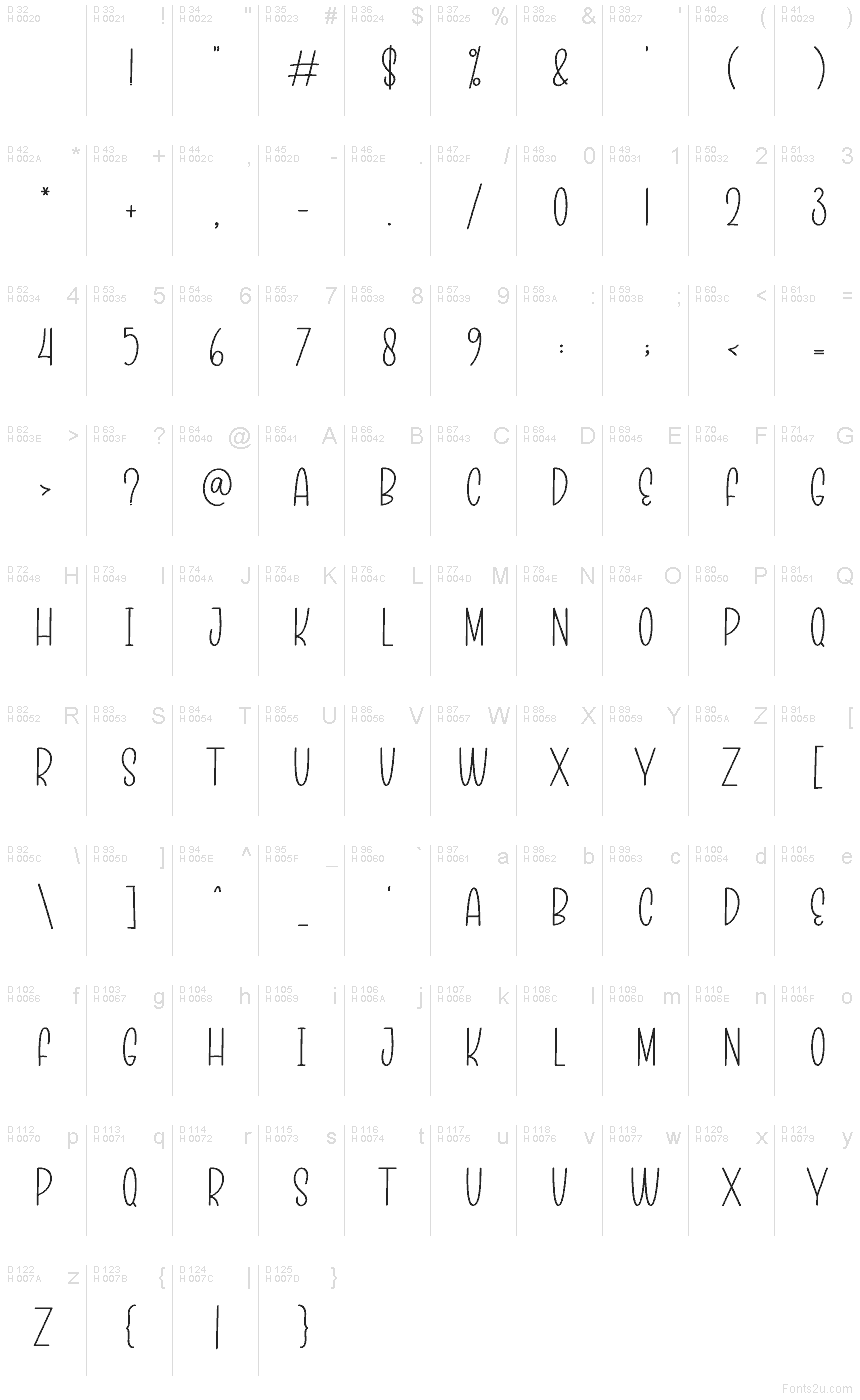
Christmas Blowing
Christmas Blowing font by Scratchones is a light, whimsical, and handwritten font with rounded features and condensed width. It’s a font with tall letterforms that give it a relaxed aesthetic. Use it for your next handwritten project or to create an informal mood in any design you have in mind.
All kinds of branding design including logos, social media posts, stationery, apparel products like T-shirts, shoes and caps can be designed with this free handwritten font. Other uses include greeting cards, ads both print/online and website projects especially headers and buttons.